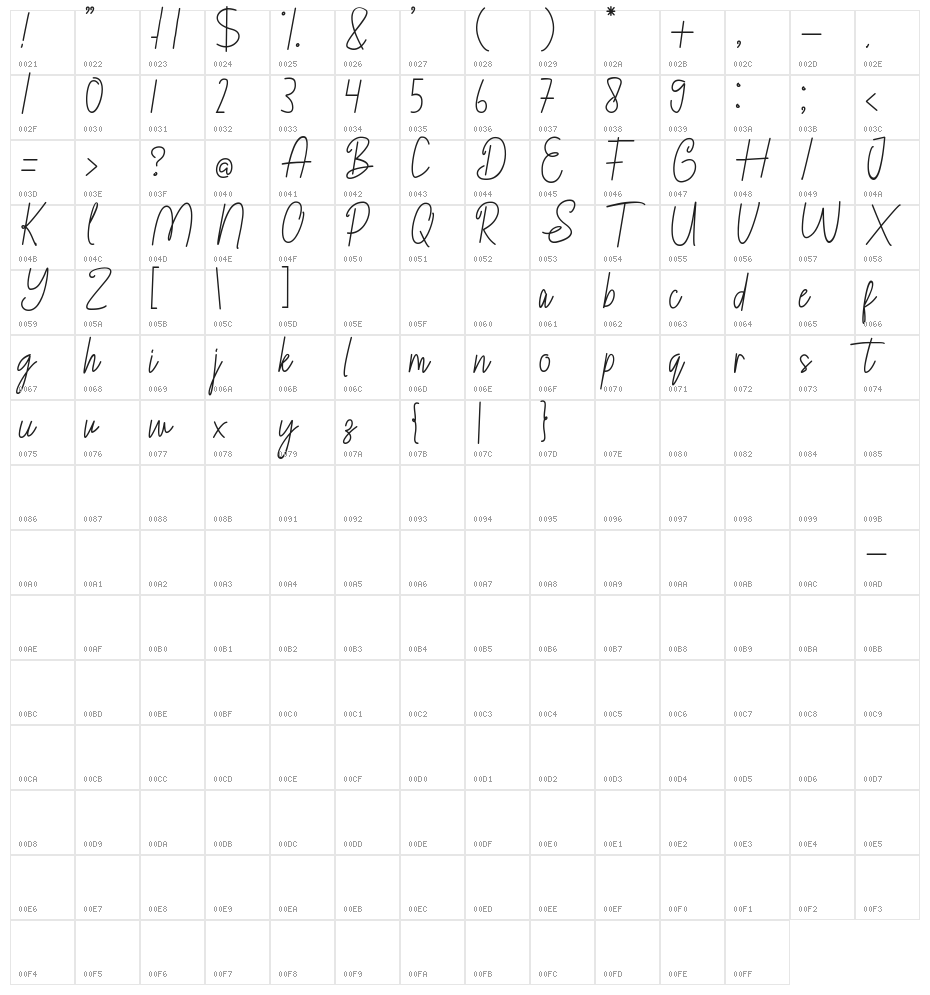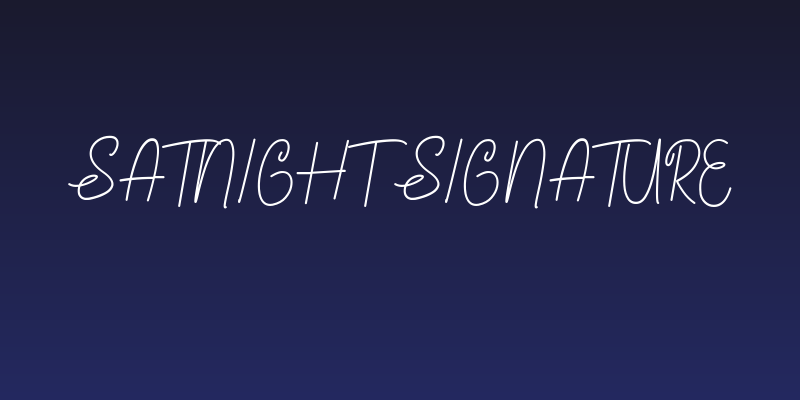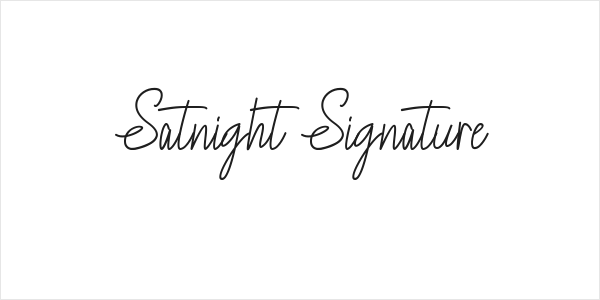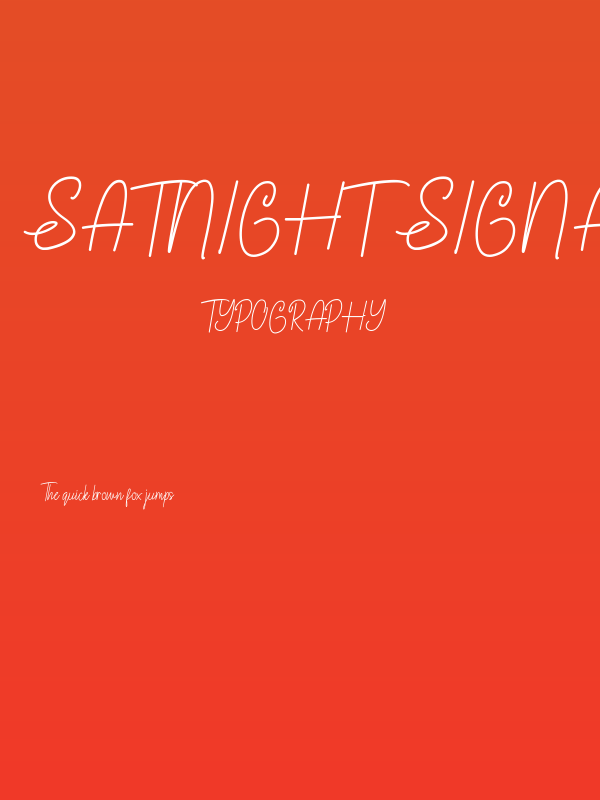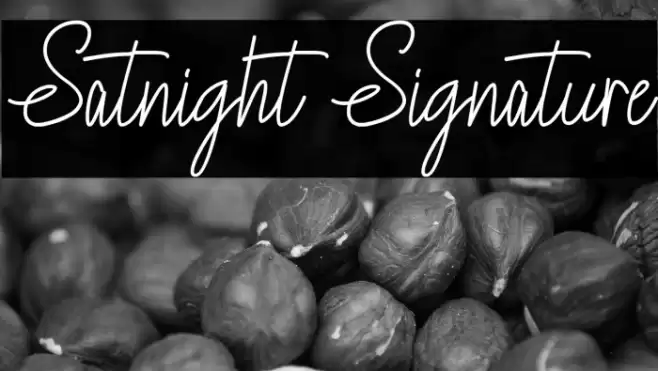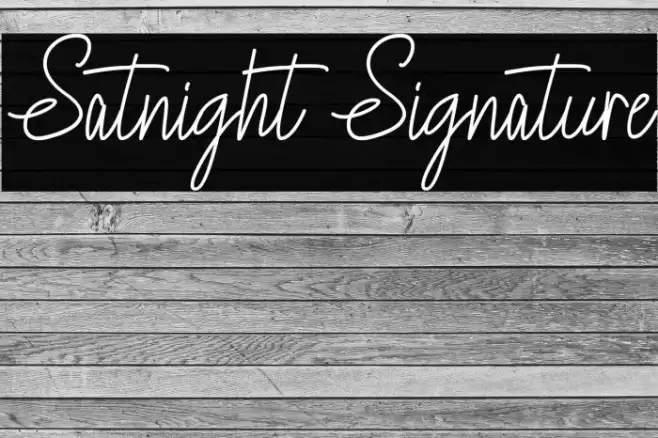
Satnight Signature Font
Satnight Signature Description
A handwritten, cursive script font with a casual and elegant style, featuring thin, flowing lines and a slightly slanted appearance.
| Overall Style | Casual, Elegant, Handwritten |
| Use Case | Invitations, Greeting Cards, Personal Branding, Logos, Decorative Headings |